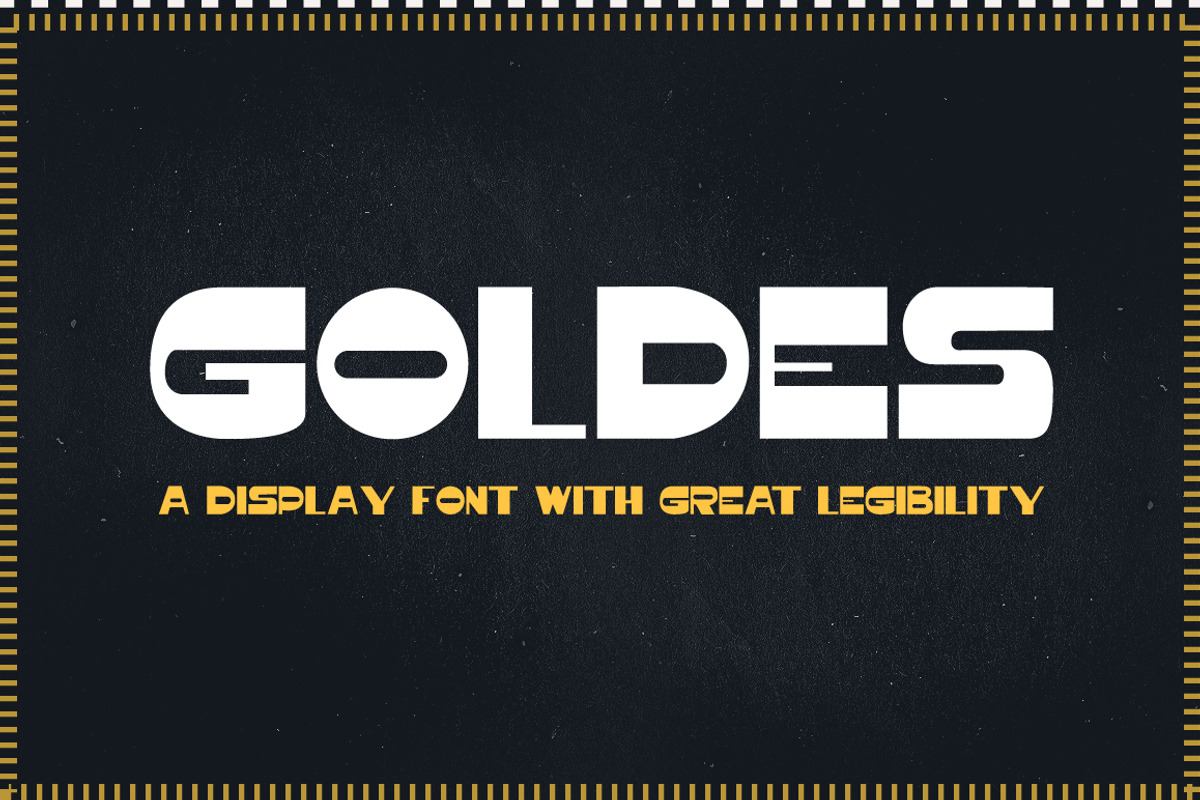
Goldes Font Free Download
The Goldes Font Free Download is a bold and elegant typeface that combines modern aesthetics with a touch of luxury. Featuring clean, sharp lines and a sophisticated style, this font is perfect for creating high-end branding, logos, posters, and premium marketing materials. Whether you're working on a fashion brand, luxury product, or creative project, Goldes brings a refined and elegant feel to your designs.
Goldes Font Free Download is ideal for designers looking for a versatile and stylish font with a contemporary yet luxurious vibe. Perfect for upscale branding, invitations, and promotional materials, this font will elevate your designs with its classy and modern style. Download it today and add a touch of elegance to your creative projects with Goldes!